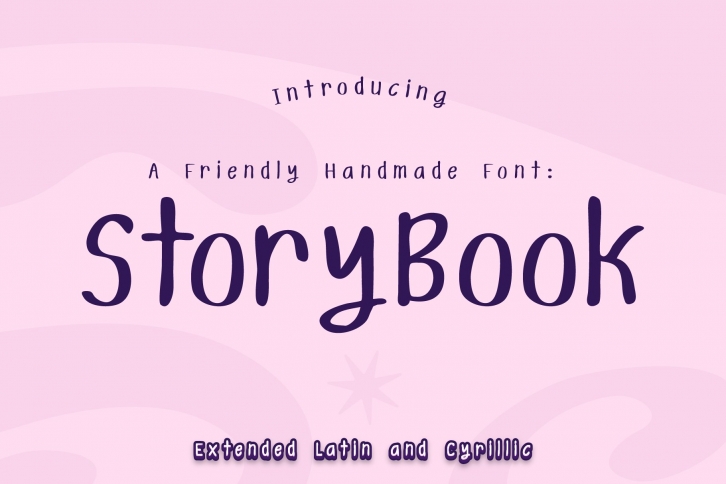
StoryBook - A Friendly Handmade Font
- StoryBook is a carefully crafted script font.
- Multilingual: It has extended Latin and extended Cyrillic letters.
StoryBook created for books, poster, web design, branding, illustrations and social media works.